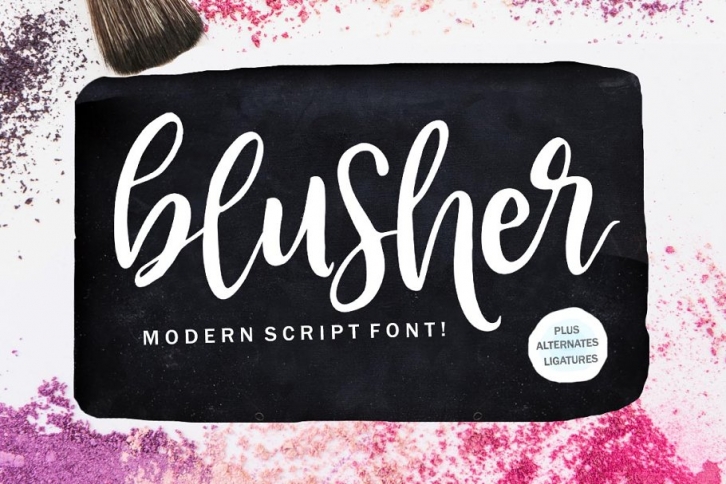
Blusher script is a hand brush font made with brushes and ink. This typeface is ideal for use in thick watercolor designs or handwriting styles, such as blog titles, posters, wedding elements, t-shirts, clothing, book covers, business cards, greeting cards, branding, merchandise etc.
Contains full set:
• alternative
• Punctuation
• number
• multilingual support.